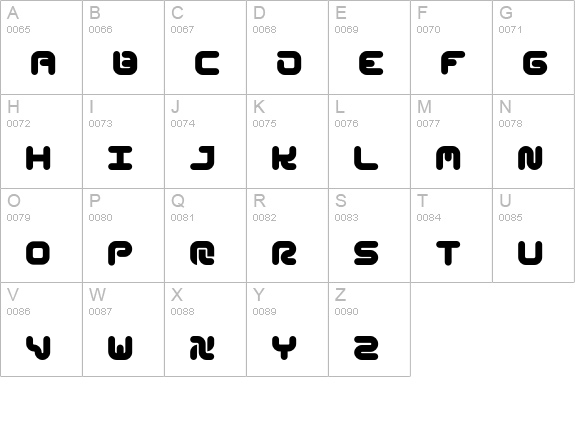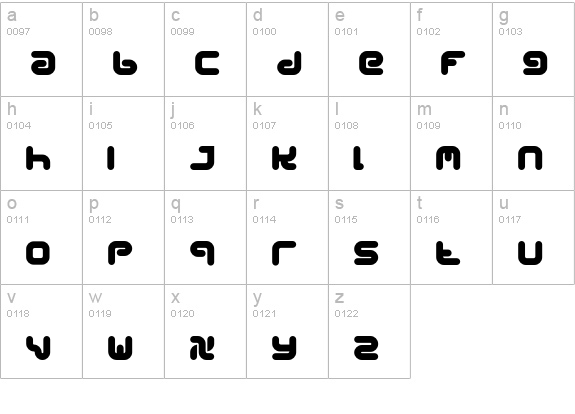
Introducing Styl-Round font, a contemporary and versatile typeface that effortlessly combines elegance with a modern twist. This font features rounded edges and smooth lines, giving it a friendly and approachable appearance perfect for a wide range of design projects. Styl-Round font is ideal for branding, logos, signage, packaging, and more, adding a touch of sophistication to any creative endeavor. What makes Styl-Round font even more appealing is that it is available for free download at FontsMarket.com. This means that you can easily access this stylish font and use it in your projects without any cost involved. Don't miss the opportunity to enhance your designs with the charm and versatility of Styl-Round font - download it today and let your creativity shine!